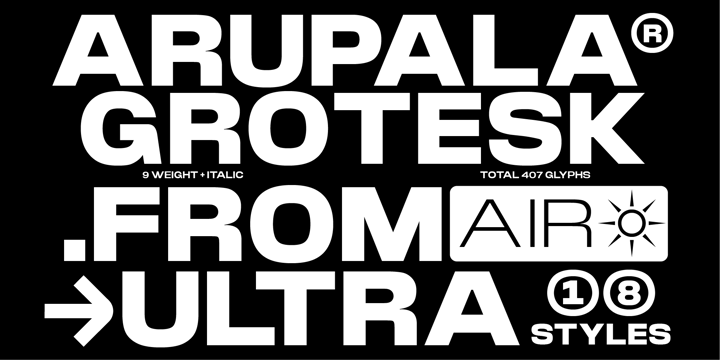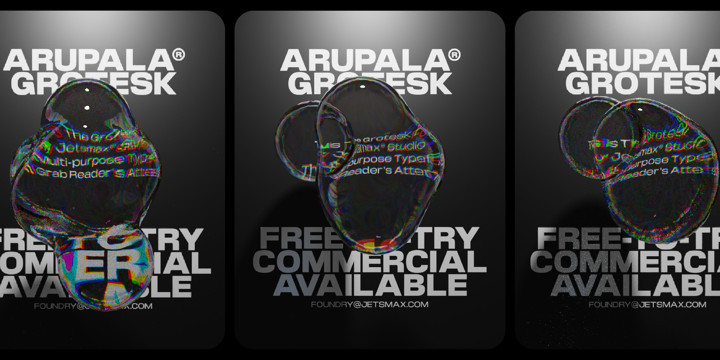
Arupala Grotesk Font Family
Arupala Grotesk Font FamilyArupala Grotesk is a Grotesk font this versatile typeface will grab readers’ Attention. This font was inspired by a character named H. Aroepala. This font is suitable for both formal and informal events and is also suitable for various types of print and digital media.